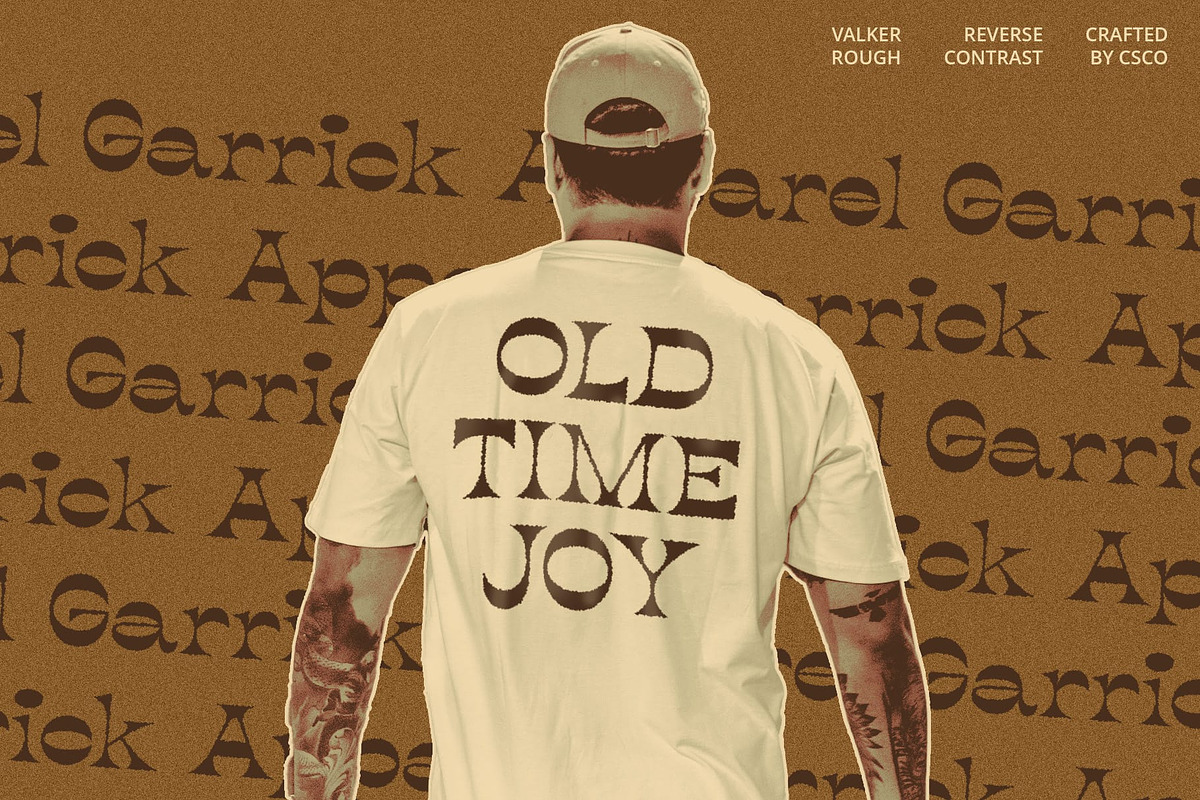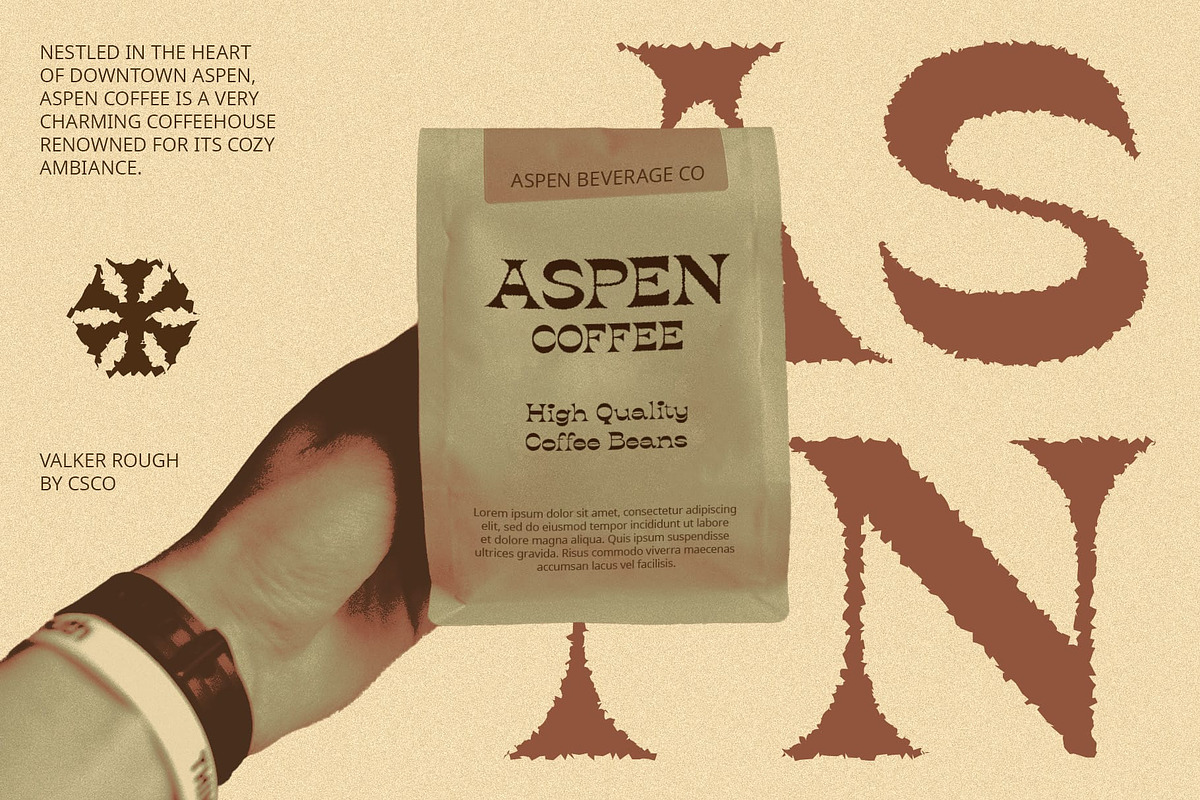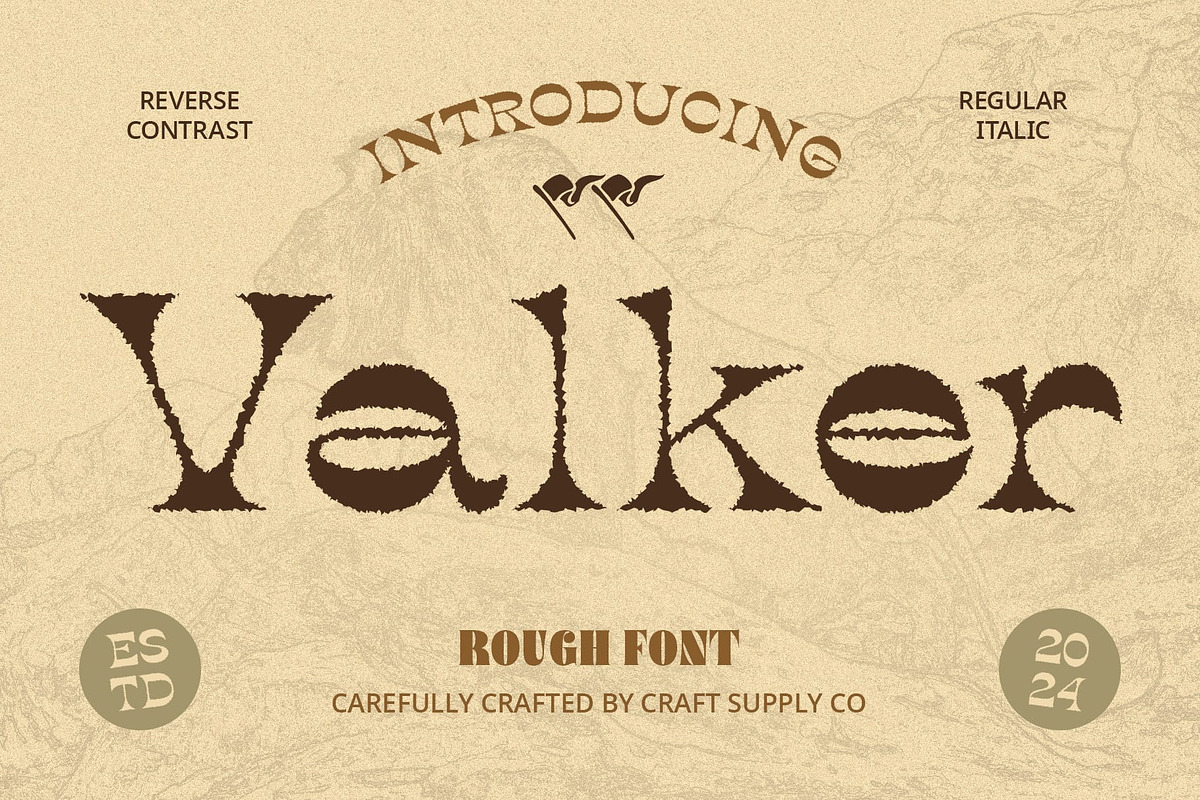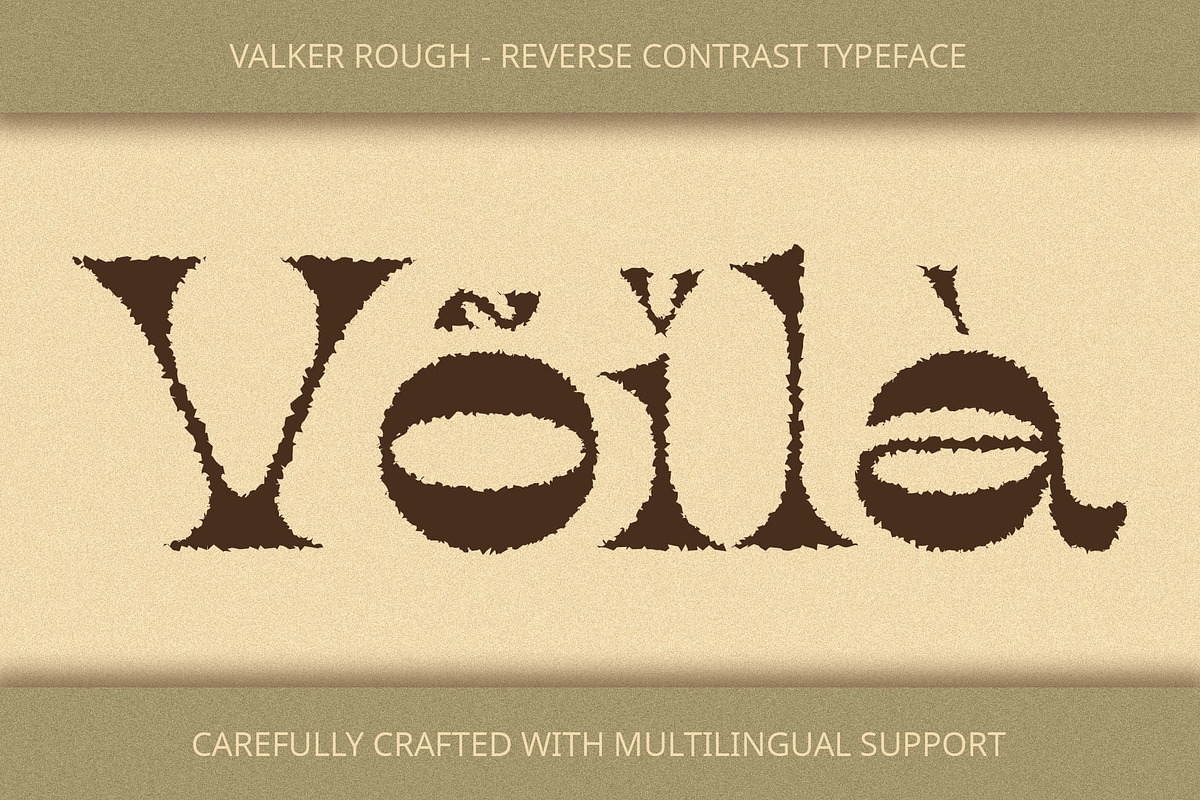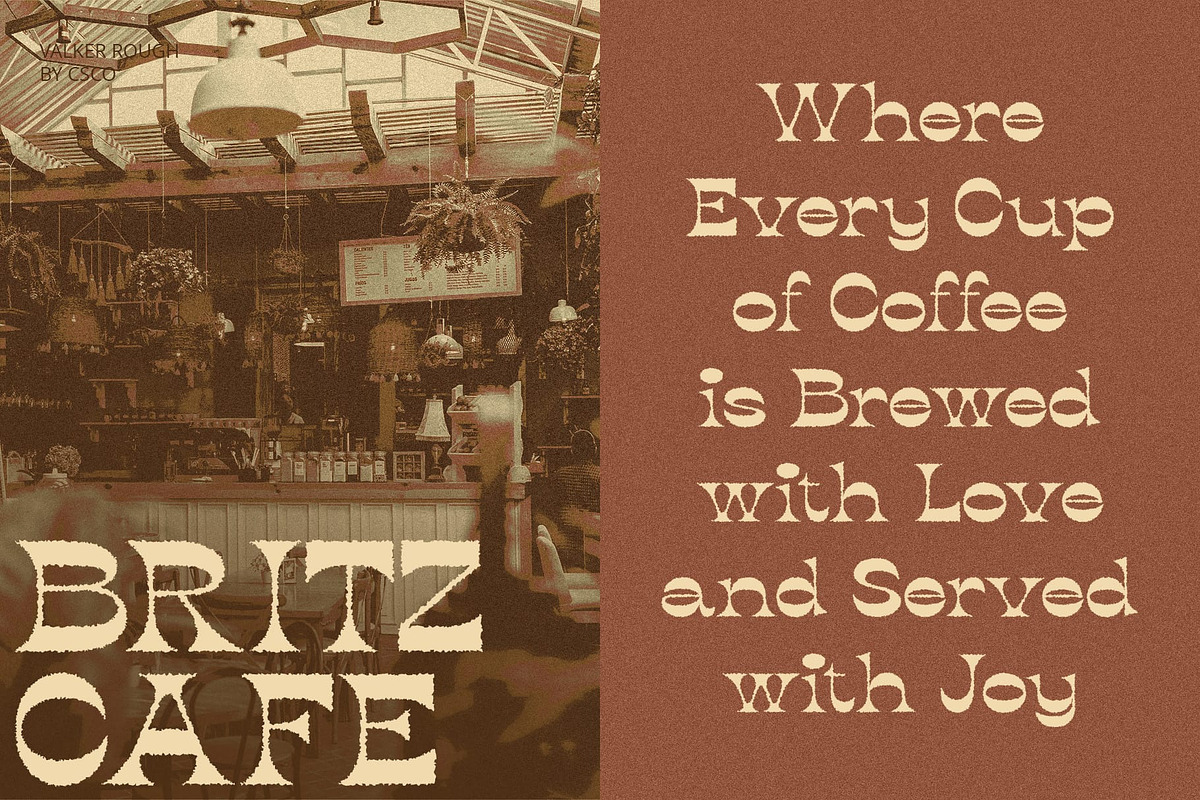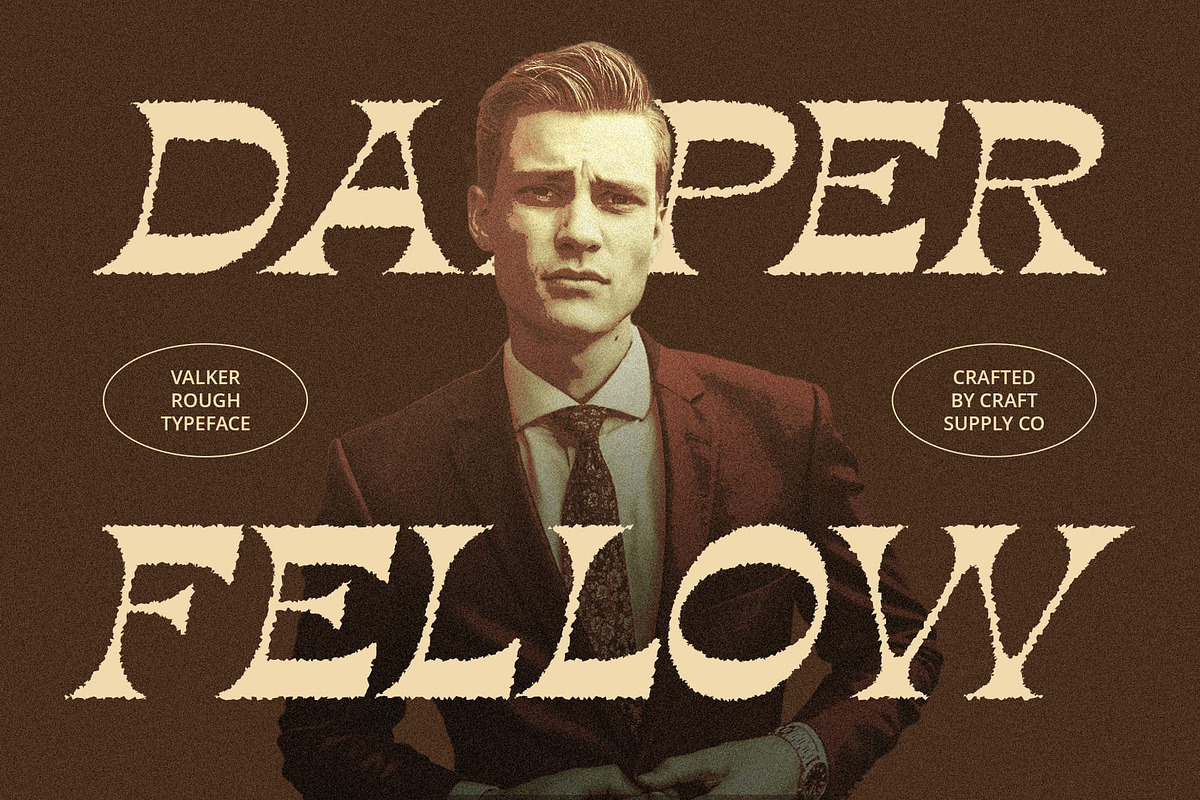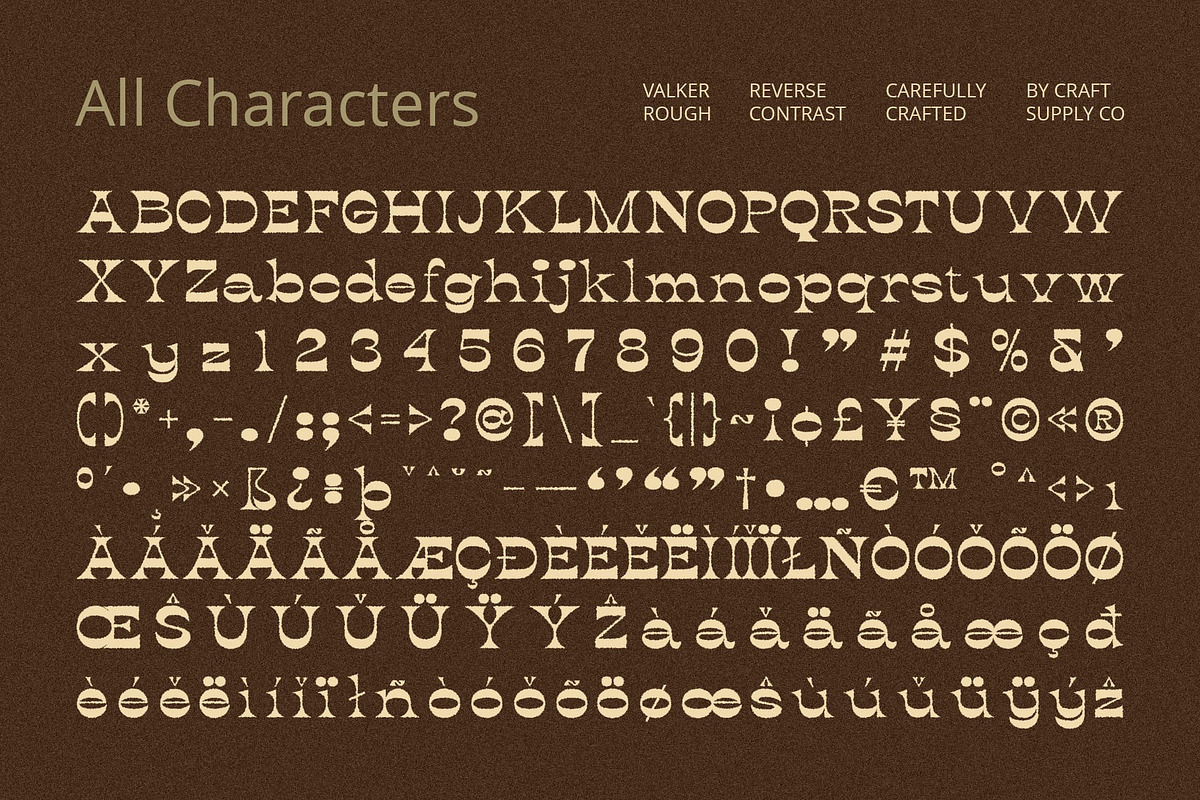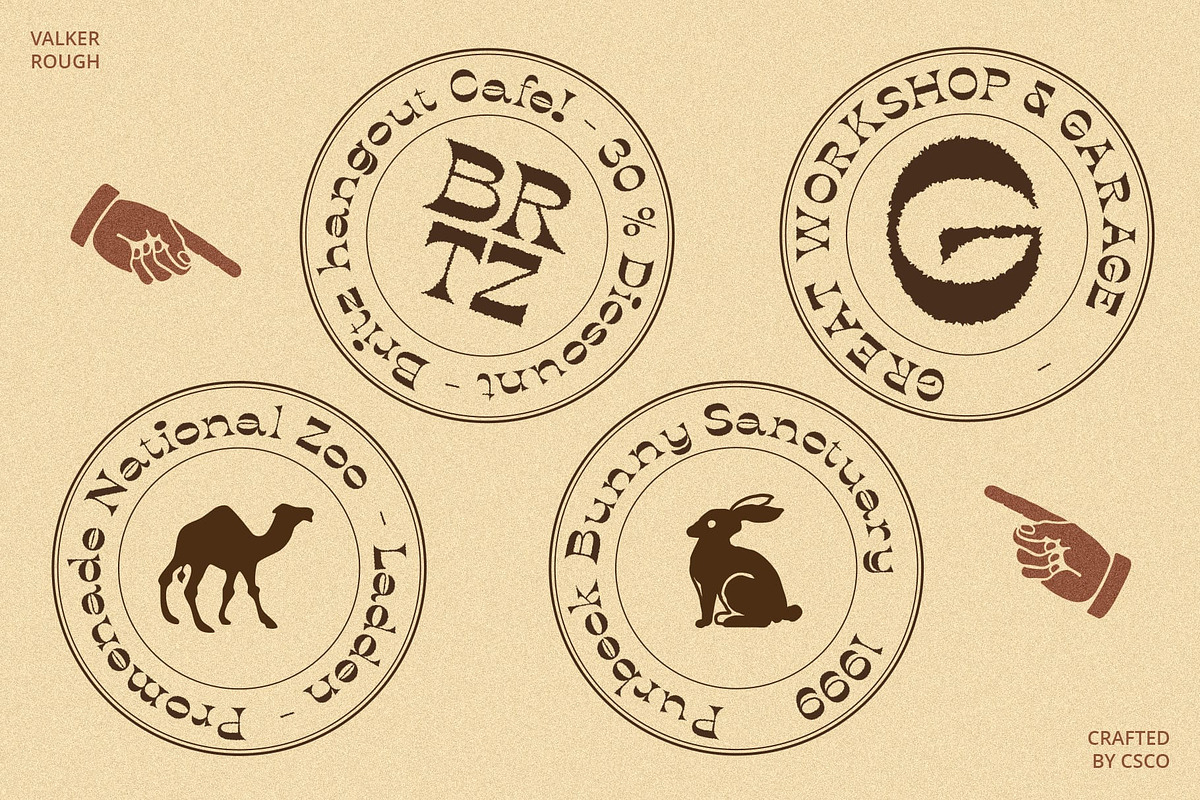
Valker Rough
Valker Rough: Retro Funky Vibes with Reverse Contrast
Distinctive Reverse Contrast Design Valker Rough is a serif font that displays a retro and funky vibe with its reverse contrast design. Unlike traditional serif fonts, it features uncommonly thick vertical strokes compared to the horizontal ones, giving it a unique and striking appearance.
Bold and Textured This font also includes a rough effect, adding a coarse texture that enhances its bold impression. The rough texture adds character and depth, making Valker Rough stand out in typographic compositions.
Ideal for Funky Vintage Projects Valker Rough is particularly suitable for projects aiming to evoke a funky vintage feel with a contemporary twist. Its reverse contrast and rough texture contribute to a strong creative and experimental aesthetic, perfect for posters, album covers, and branding that require a distinctive and bold typographic style.
Versatile Application Despite its bold design, Valker Rough maintains readability and impact across various design applications. Whether used in digital or print media, it adds a dynamic and retro-inspired touch to typographic elements.